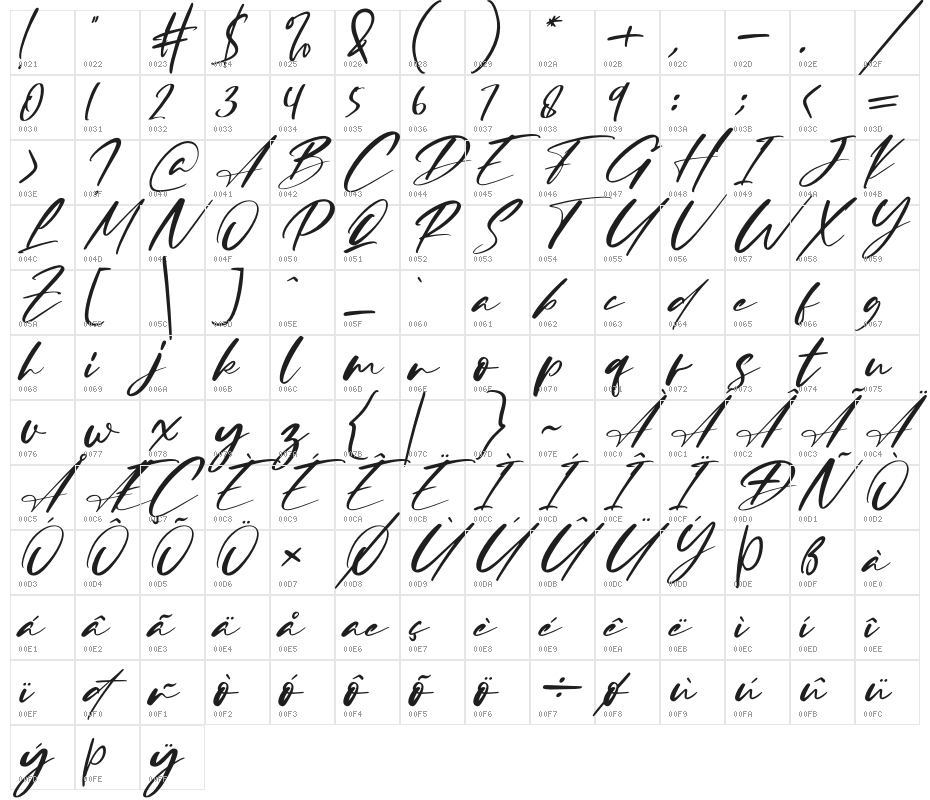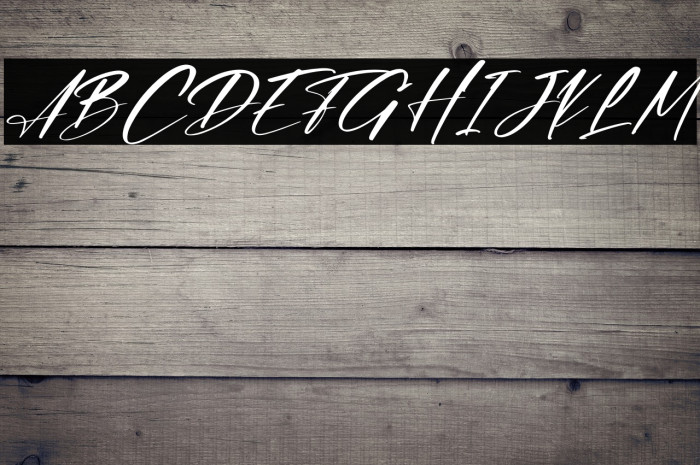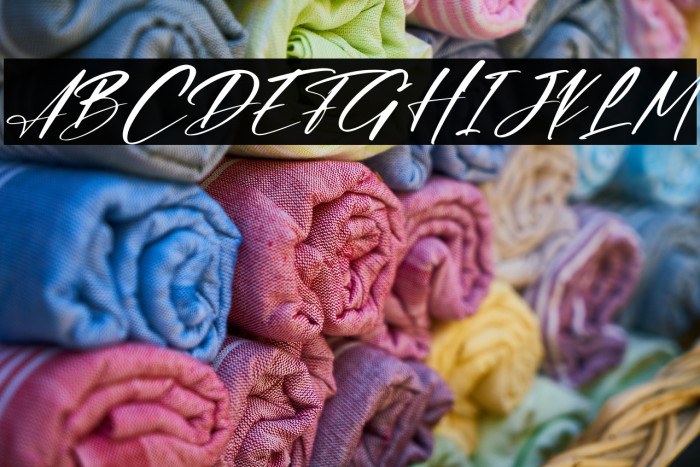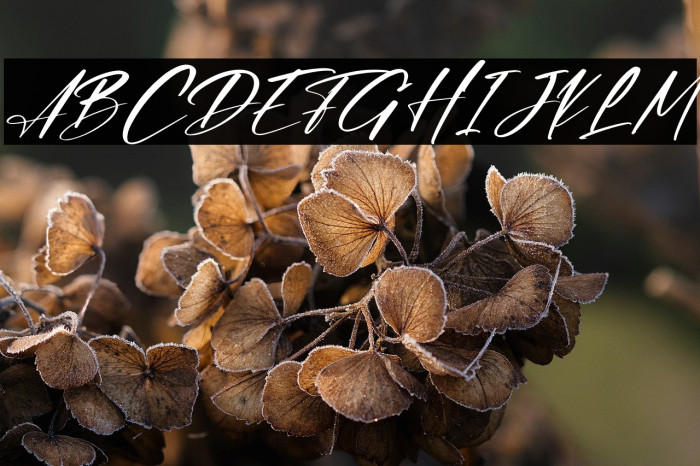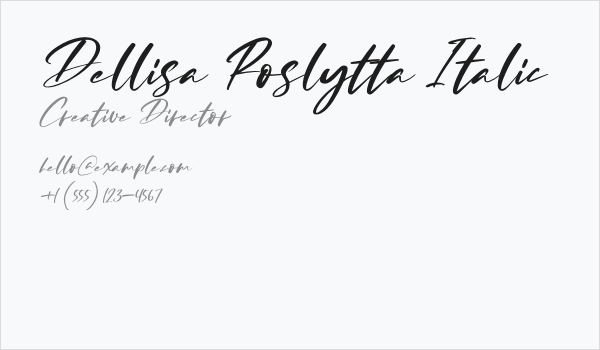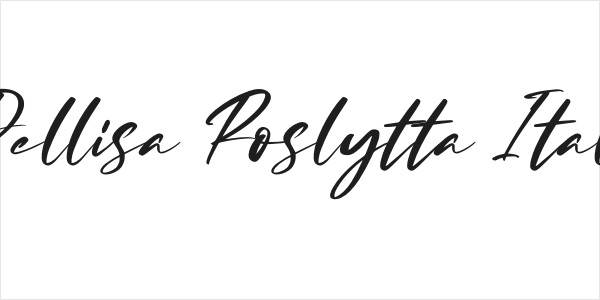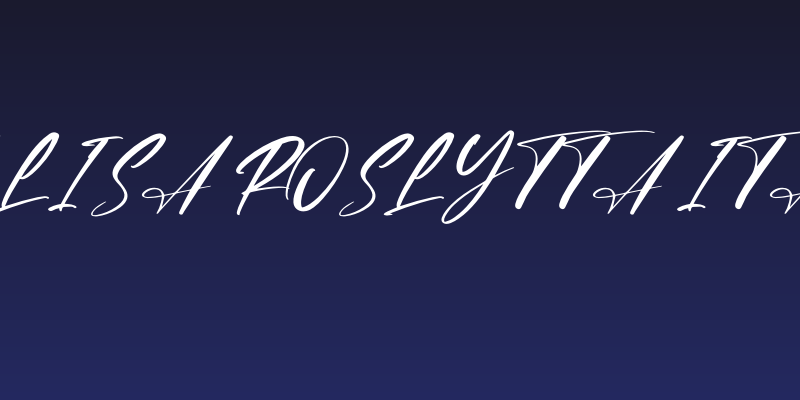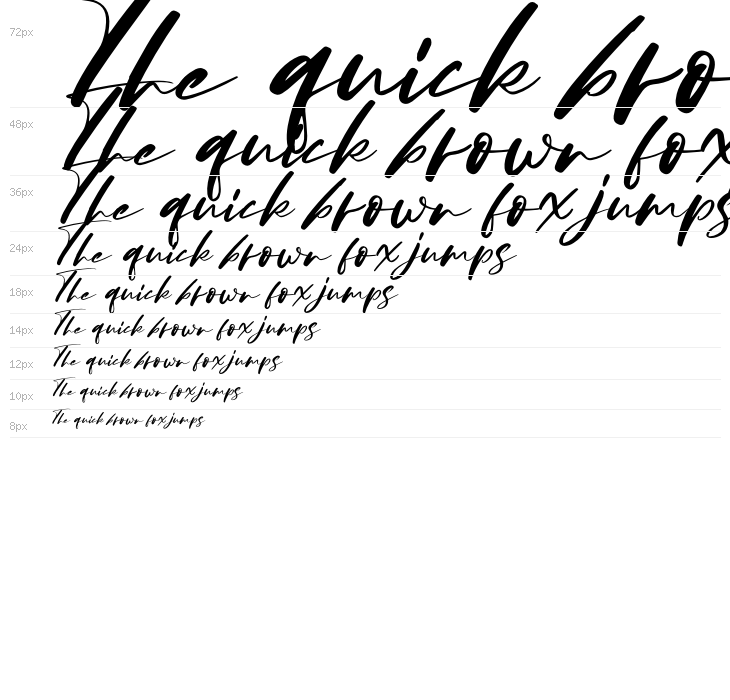
Dellisa Roslytta Italic Font
Dellisa Roslytta Italic Description
This font exhibits a dynamic and flowing script style, characterized by its elegant and cursive letterforms. The uppercase letters are bold and sweeping, with a distinct slant that adds a sense of motion and grace. The lowercase letters maintain a consistent flow, with smooth connections between characters, enhancing the handwritten feel. The numerals are equally stylish, featuring curves that complement the overall aesthetic. Special characters are thoughtfully designed to match the script's fluidity, making them seamlessly integrate with text. This font's artistic flair makes it suitable for creative and expressive design projects.
| Use Case | Logos, Invitations, Artistic designs |
| Proposed Projects | Ideal for wedding invitations, branding, greeting cards, and any project requiring a personal, artistic touch. |